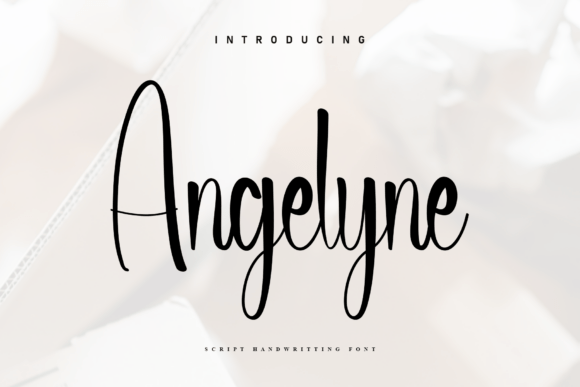
The Perfect Script for Your Next Design Project
Have you ever been working on a design project, staring blankly at your screen, trying to come up with the perfect font to capture the essence of your brand? That’s where the magic happens. For me, it’s in those quiet moments of inspiration, when the perfect font suddenly pops into my head, and I know I’ve found the one. And that’s exactly what I felt when I first laid eyes on the Angelyne Font.
This charming handwritten font is filled with a sense of heartfelt perfection, making it perfect for a variety of design projects. Its smooth strokes and organic lines evoke a relaxed atmosphere, making it ideal for branding, invitations, and social media graphics. As a designer, you’re always on the lookout for the perfect font to elevate your work, and the Angelyne Font is sure to deliver.
Angelyne Font Key Features
- Unique Characteristics: This font features a distinctive, hand-painted aesthetic with a mix of brush and digital elements, giving it a unique and eye-catching look.
- Font Pairing: Angelyne Font is designed to be paired with other sans-serif and script fonts, making it versatile for various design applications.
Angelyne Font Review
Overall, I found Angelyne to be a visually striking and eye-catching font. The bold and elegant script ✨ elements add a touch of sophistication and glamour, making it perfect for use in luxury branding, fashion, or high-end advertising.
One of the standout features of Angelyne is its versatility ✨. It can be used in a variety of contexts, from formal invitations to modern packaging designs. The font’s fluid connections ✨ between letters make it easy to read and visually appealing.
- ⚠️ Difficult to read in small sizes: Angelyne’s script elements can become difficult to decipher when used in text sizes below 14 points.
- ⚠️ Lack of italic and oblique styles: While the font includes bold and regular styles, it’s missing italic and oblique versions, which may limit its use in certain design contexts.
Overall, I think Angelyne is a beautiful font that can add a touch of glamour to any design project. However, its limitations in small text sizes and lack of italic and oblique styles may make it less suitable for certain applications.
Tips for Getting the Most Out of Angelyne Font
Use Angelyne Font to create bold, eye-catching headlines and titles.
Combine Angelyne Font with other design elements, such as shapes and graphics, to create a cohesive look.
Experiment with different font sizes, colors, and styles to achieve the desired effect.
Use Angelyne Font for creating custom typography and logos.
Apply Angelyne Font to headlines and titles to make them stand out.
Use Angelyne Font in conjunction with other design elements to create a visually appealing presentation or document.
Alternatives to Angelyne Font
Great Vibes Font is a modern, elegant script font. It is ideal for creating a luxurious and sophisticated look in designs, especially for branding, advertising, and fashion-related projects. Great Vibes Font is more elegant and sophisticated compared to Angelyne Font, which has a more playful and vintage feel.
Carolyna Pro Font is a beautiful, high-end script font with a touch of elegance and sophistication. It is suitable for creating high-end branding, luxury packaging, and upscale advertising designs. Carolyna Pro Font is more refined and polished compared to Angelyne Font, which has a more casual and laid-back feel.